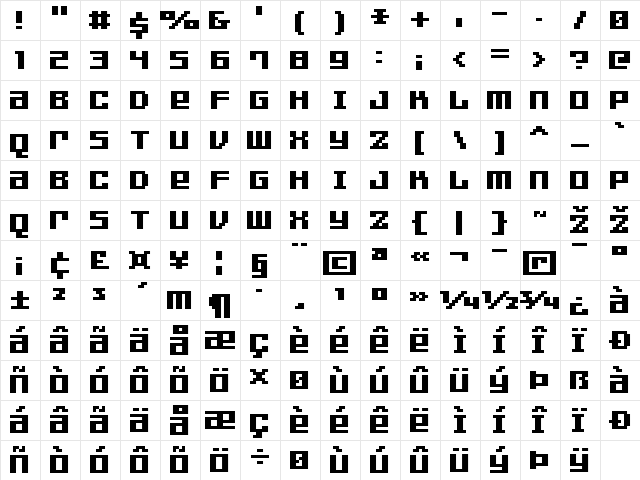
FFF Games Bold Extended Regular
Design Context for FFF Games Bold Extended Typeface
FFF Games Bold Extended takes a measured approach to typography — its balanced proportions and neutral character make it a reliable workhorse for both digital and print work. The heavy weight commands attention and anchors typographic hierarchies.